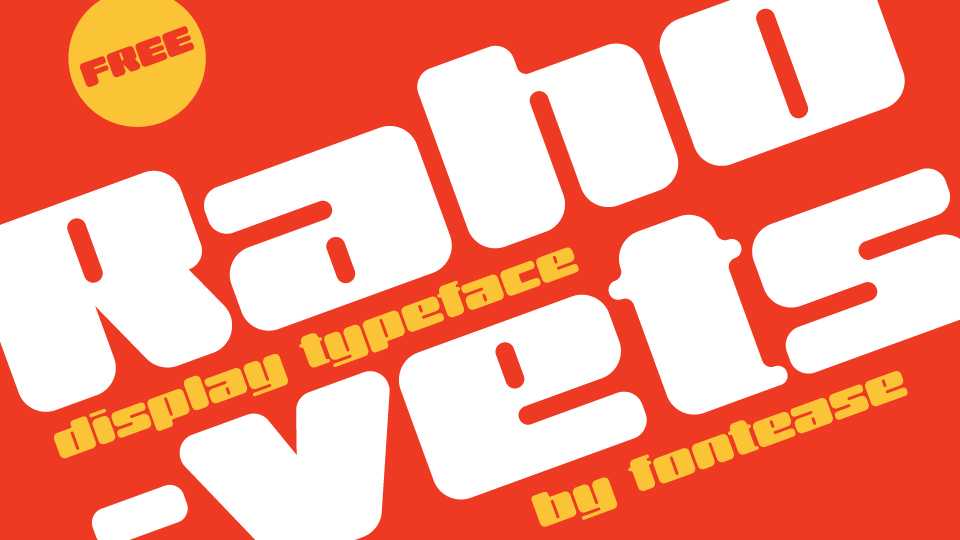
Download Rahovets font, a display typeface inspired by an inscription on the most popular Bulgarian compact oven from the communist era, which bears the same name.
Designer: Fontease Type Foundry